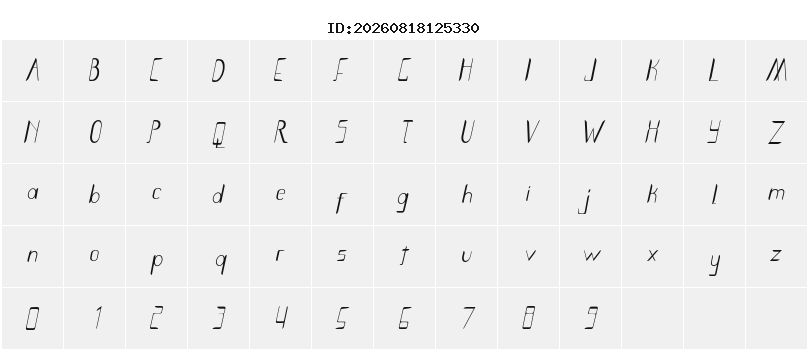
Smoth Bight Italic Preview
• Font Name: Smoth Bight Italic
• Designer: NOELSTO
• Manufacturer: KUSTREN
About Smoth Bight Italic.otf
Smoth Bight Italic.otf is a modern, elegant sans-serif font designed for ultimate readability and visual harmony. Perfect for branding, headlines, web design, and print materials.